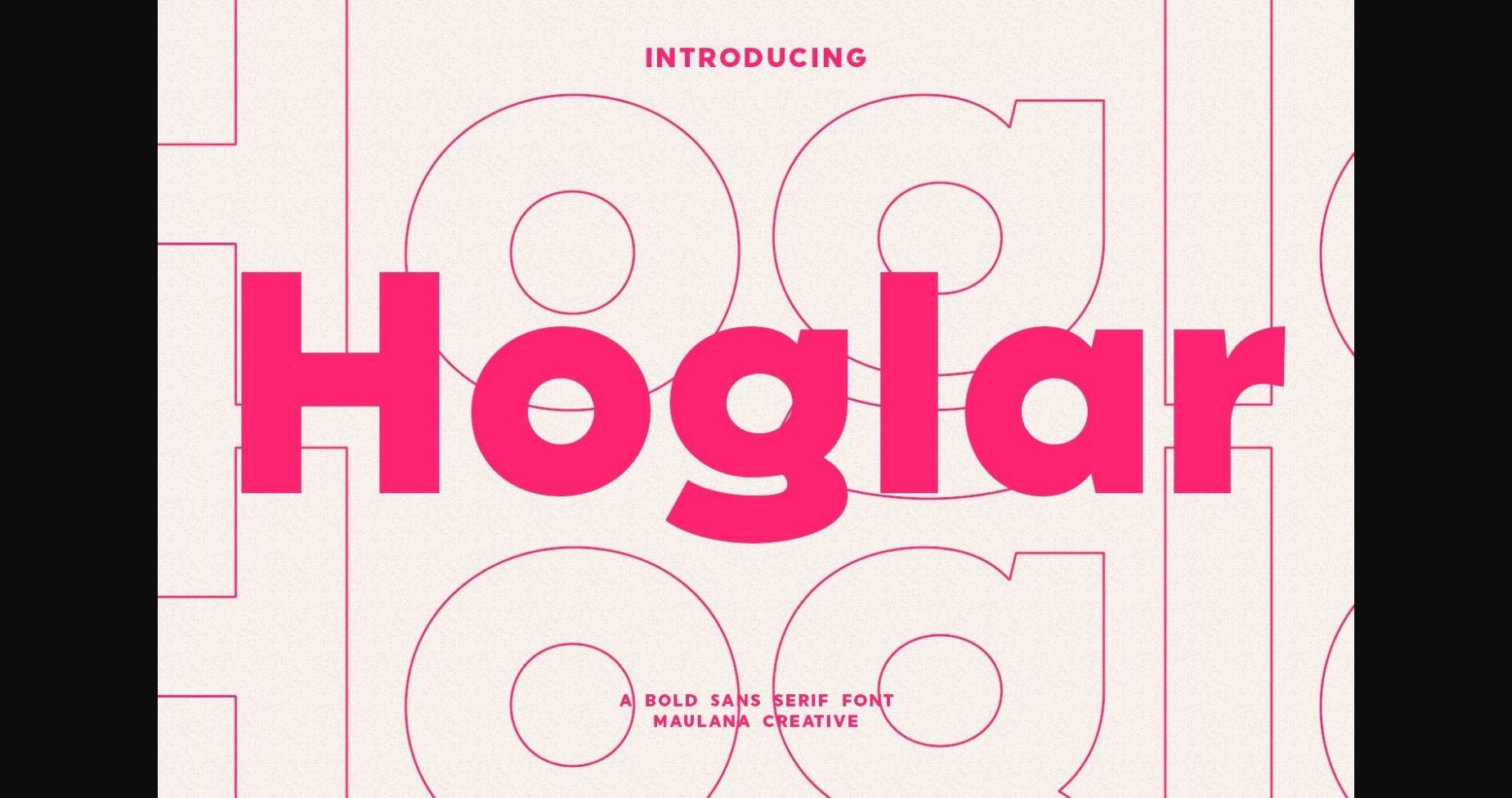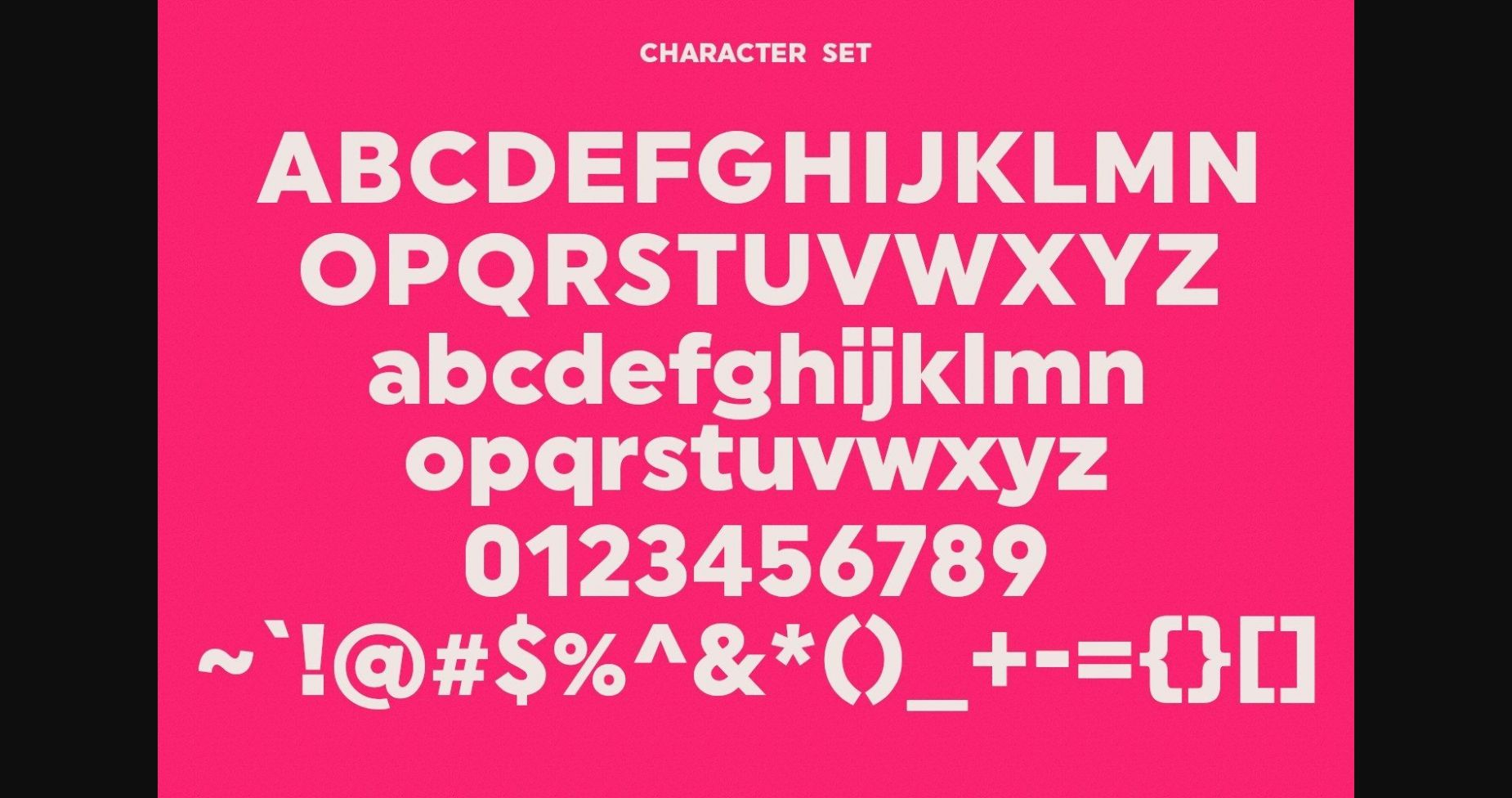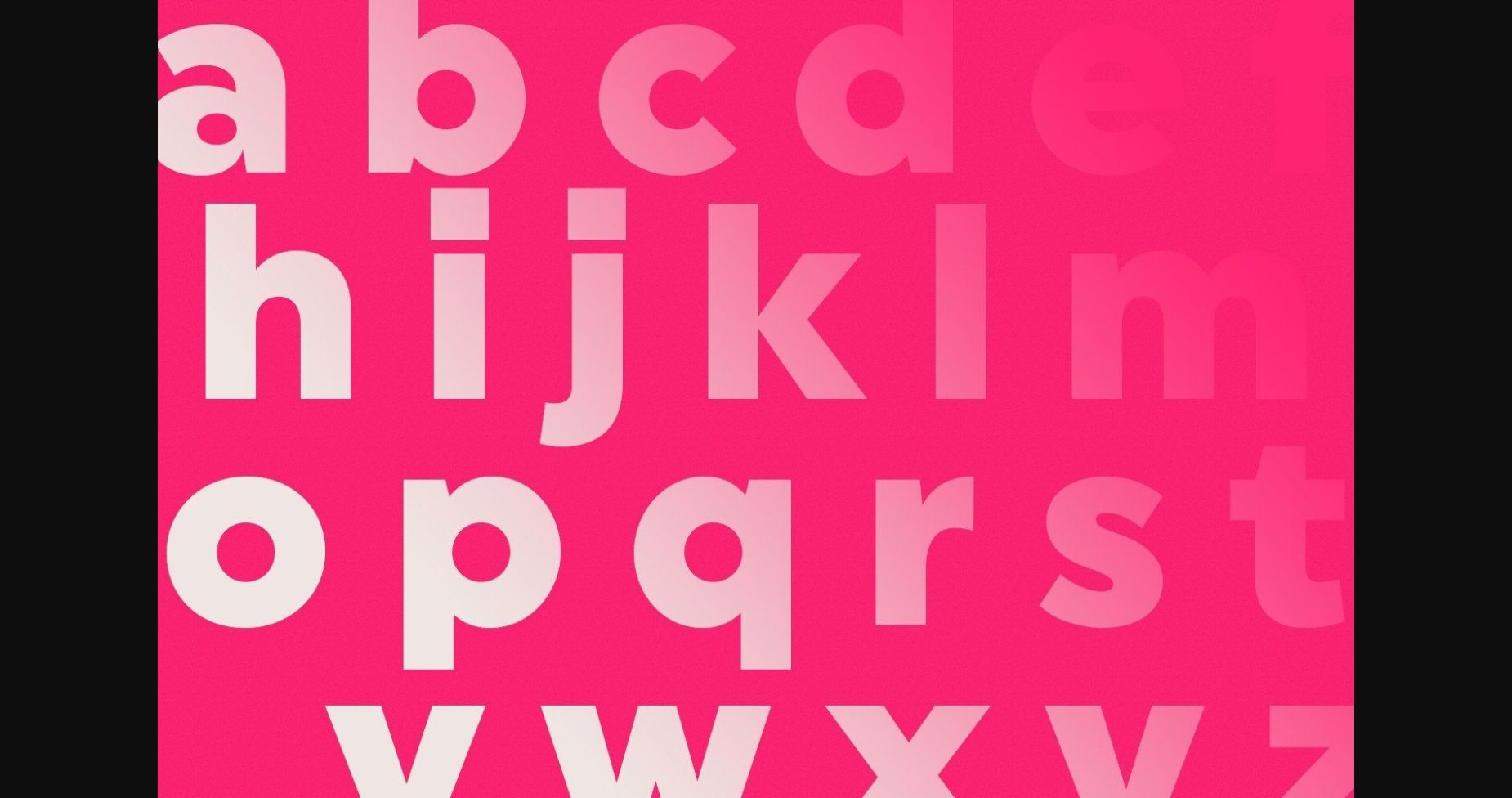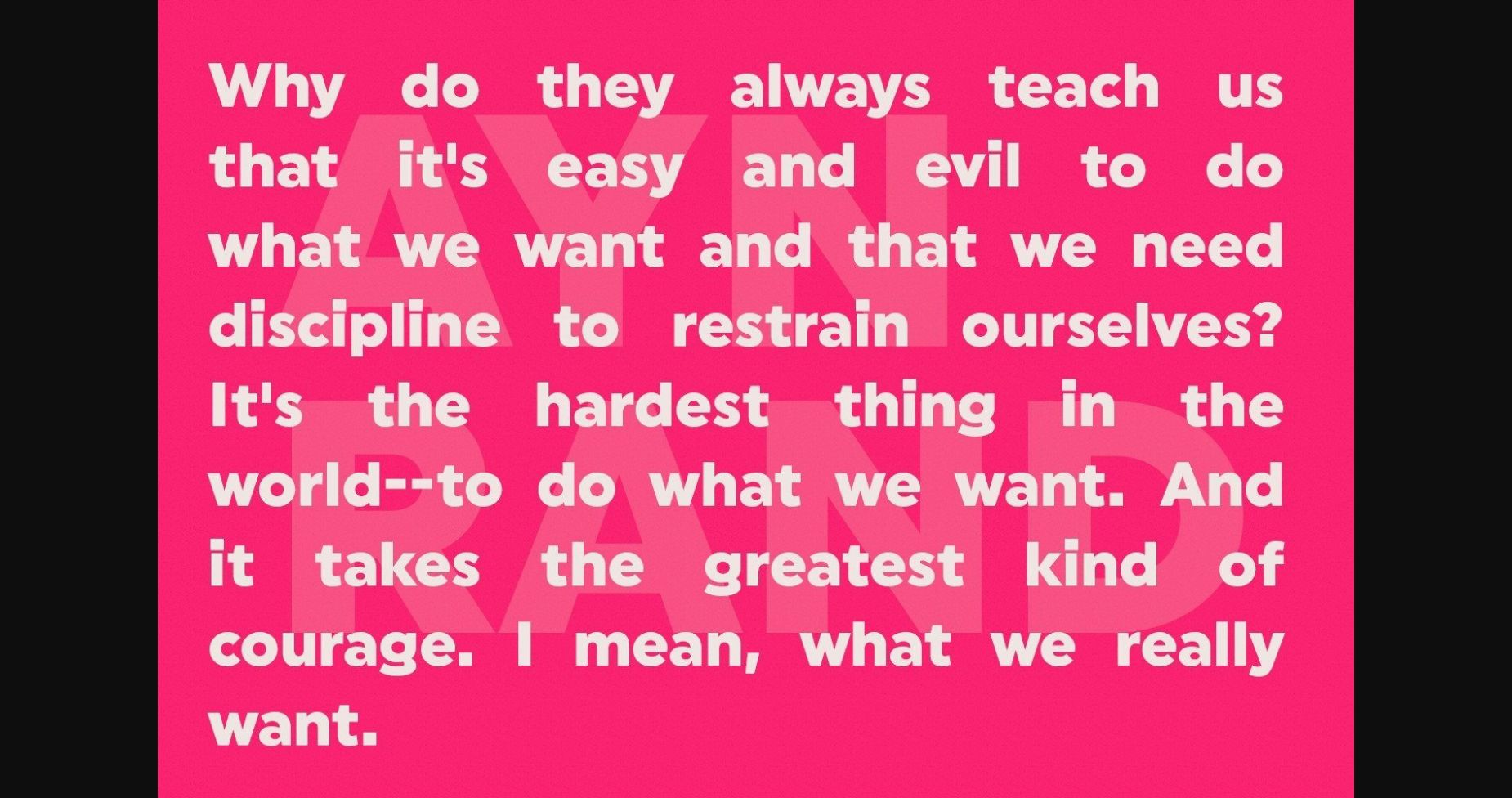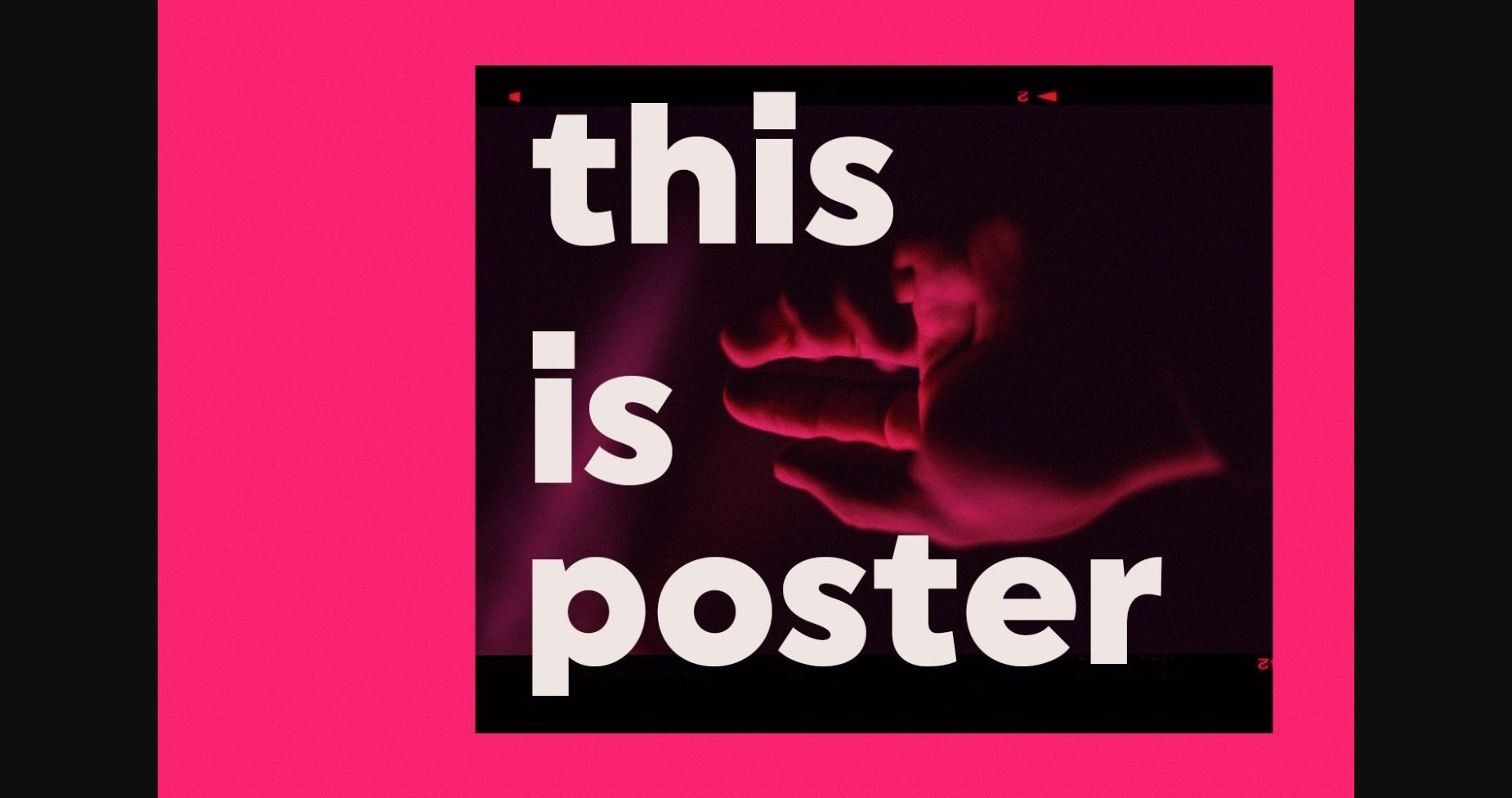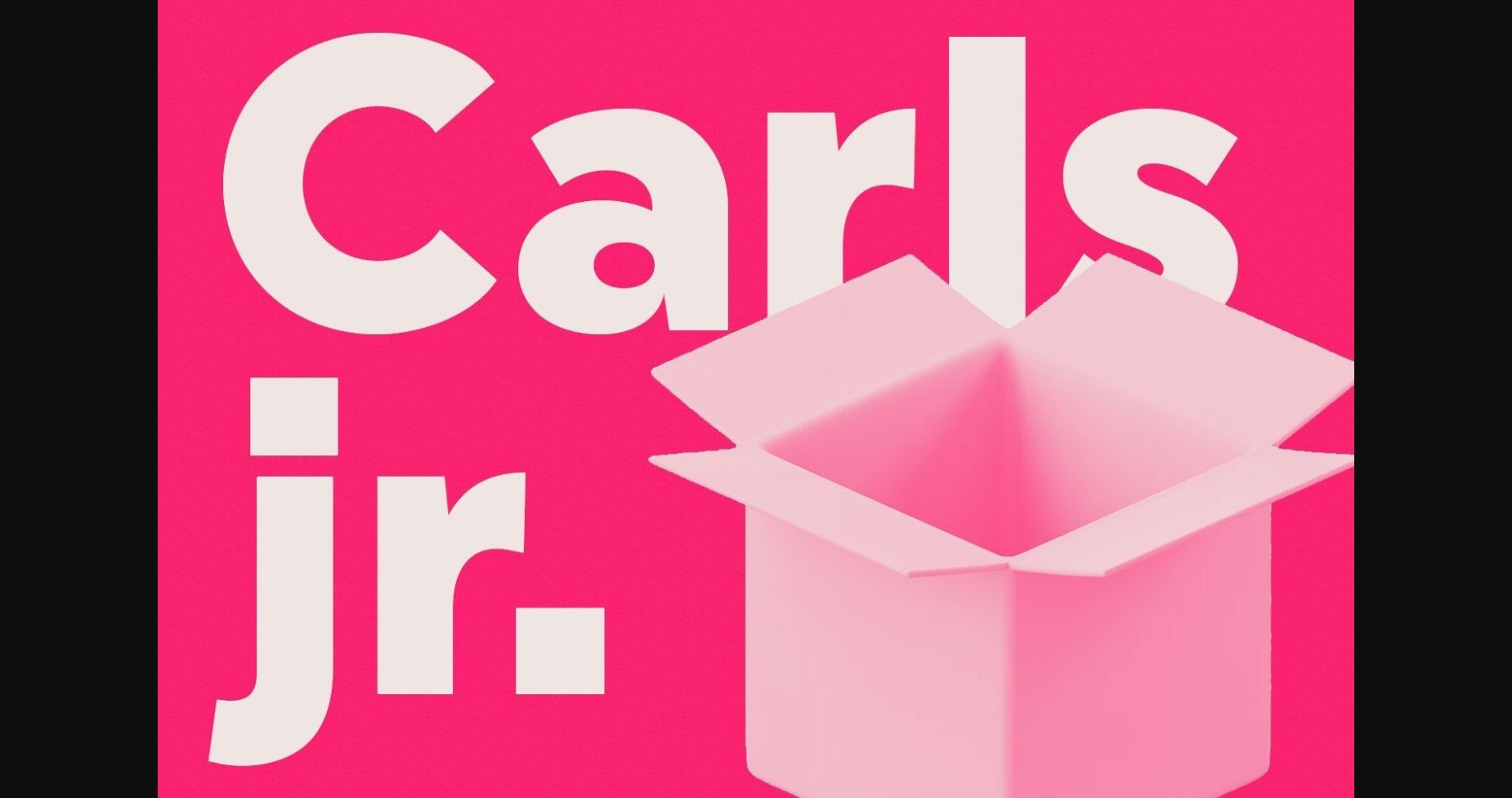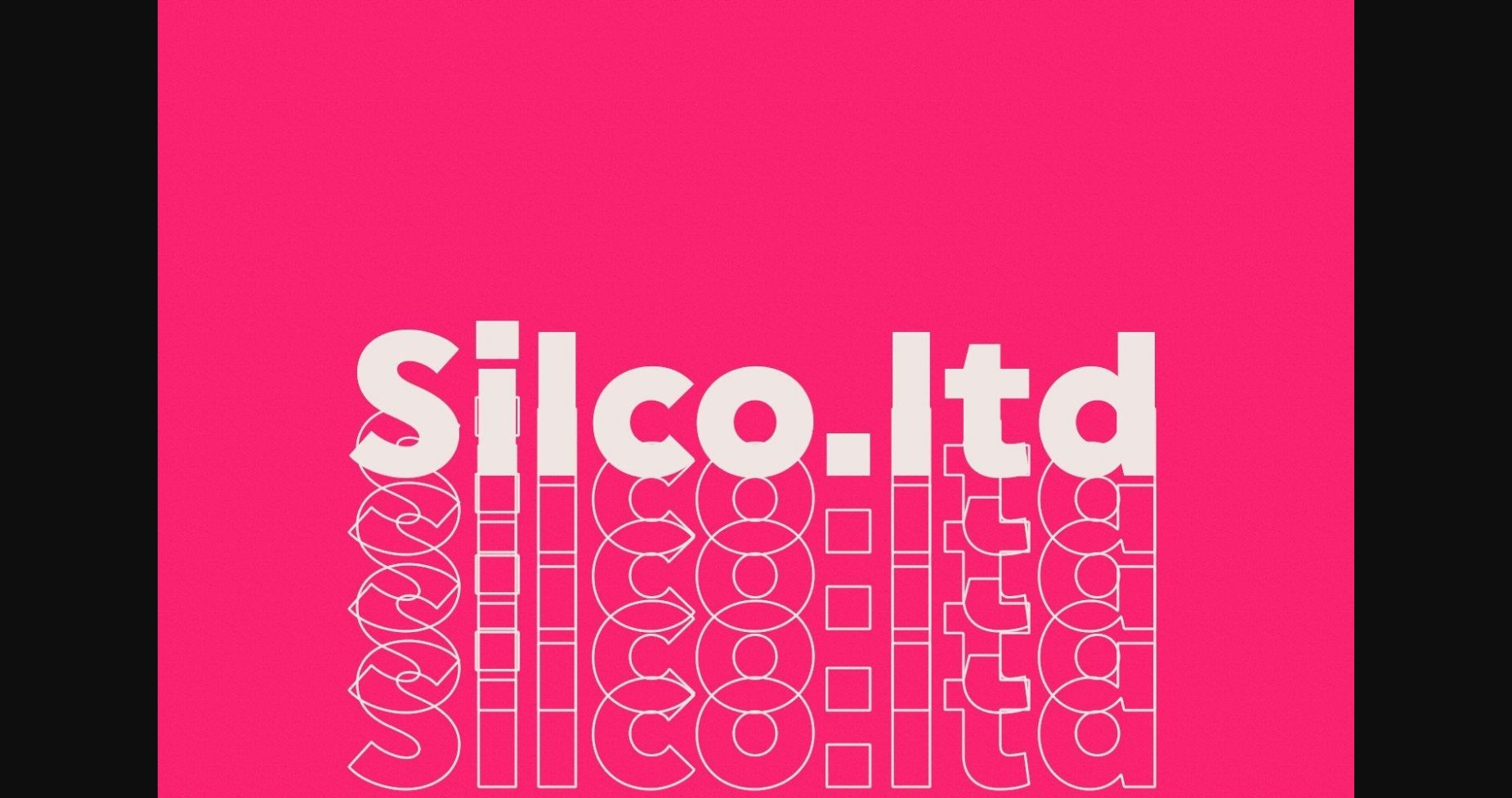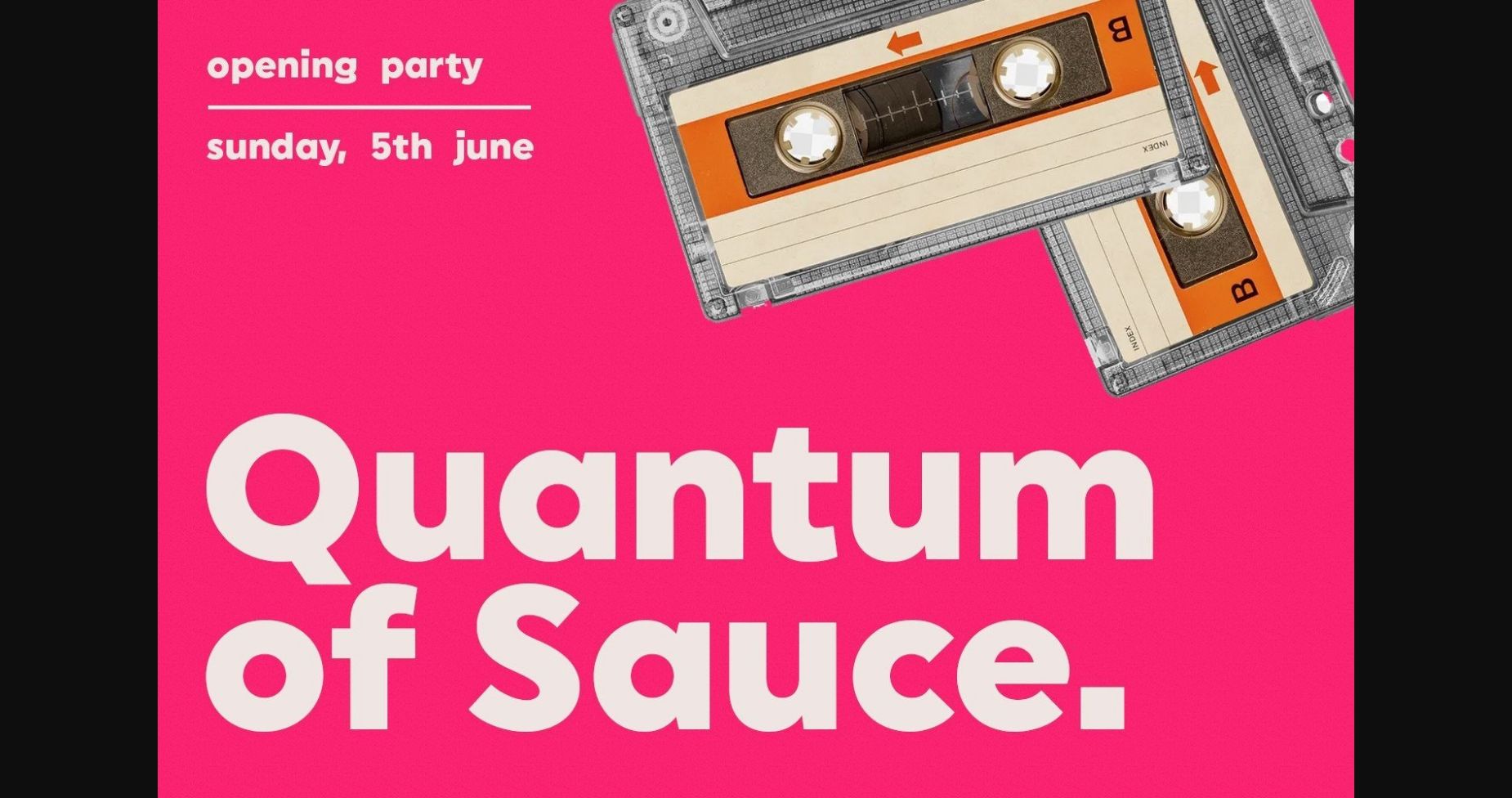
Hoglar Font
About Hoglar Font
Hoglar is a modern sans serif font. It can easily be matched to an incredibly large set of projects, so add it to your creative ideas and notice how it makes them stand out!